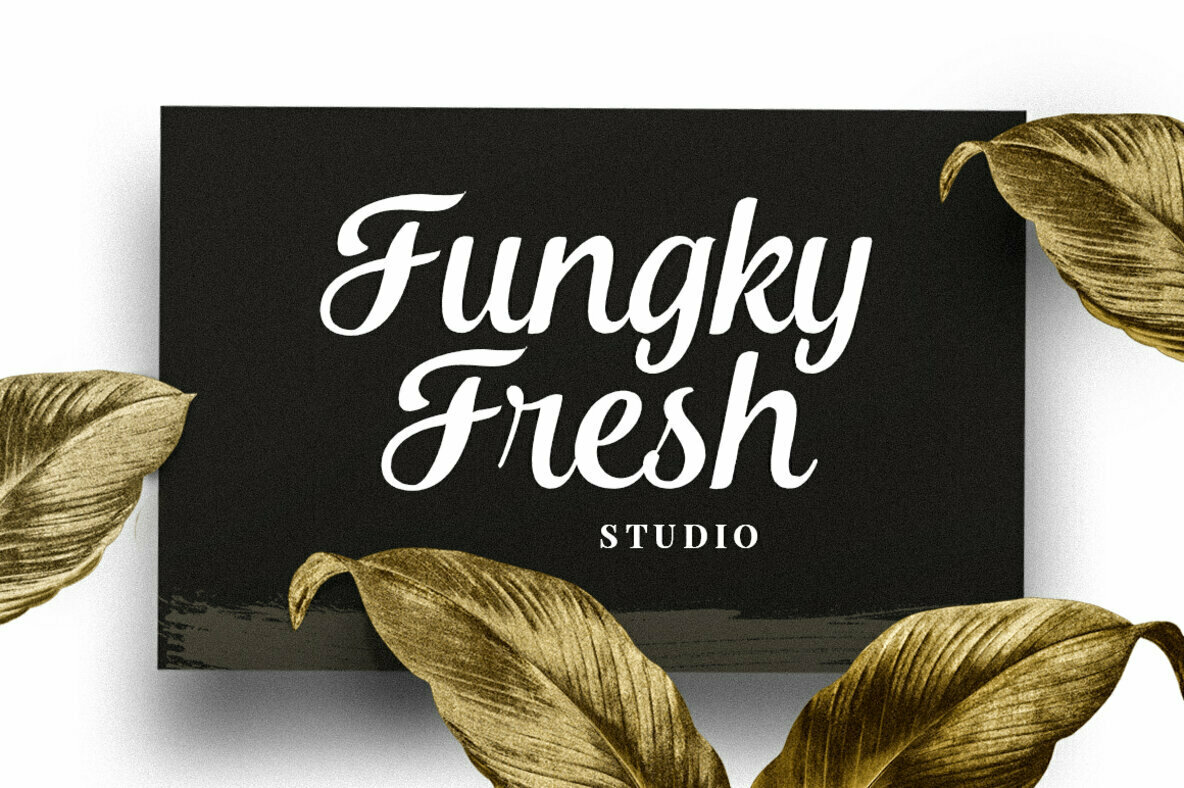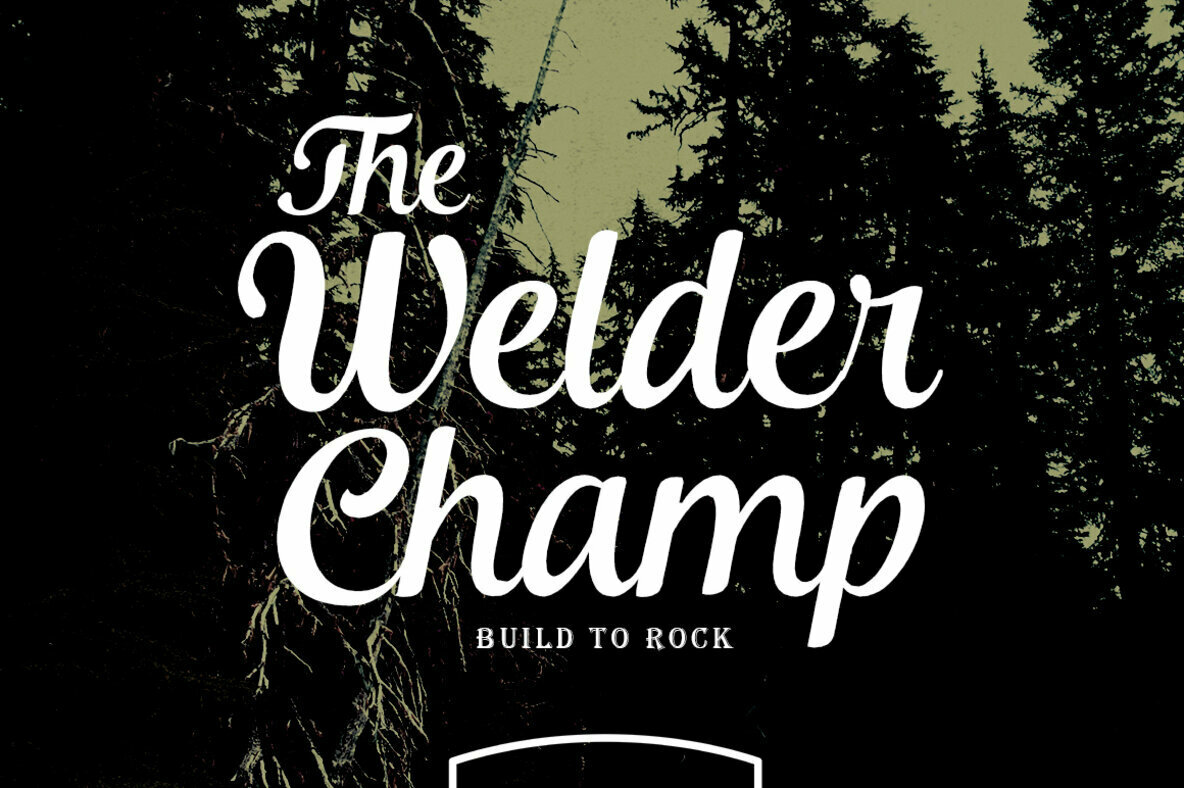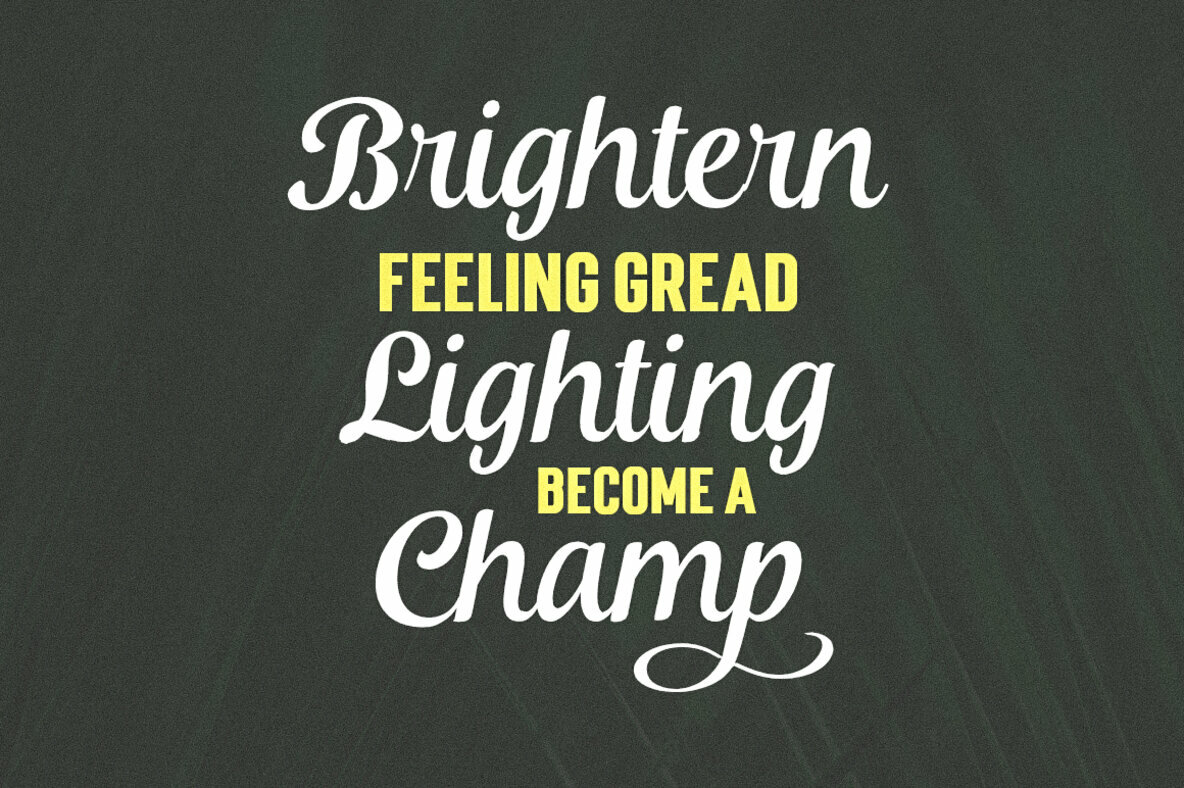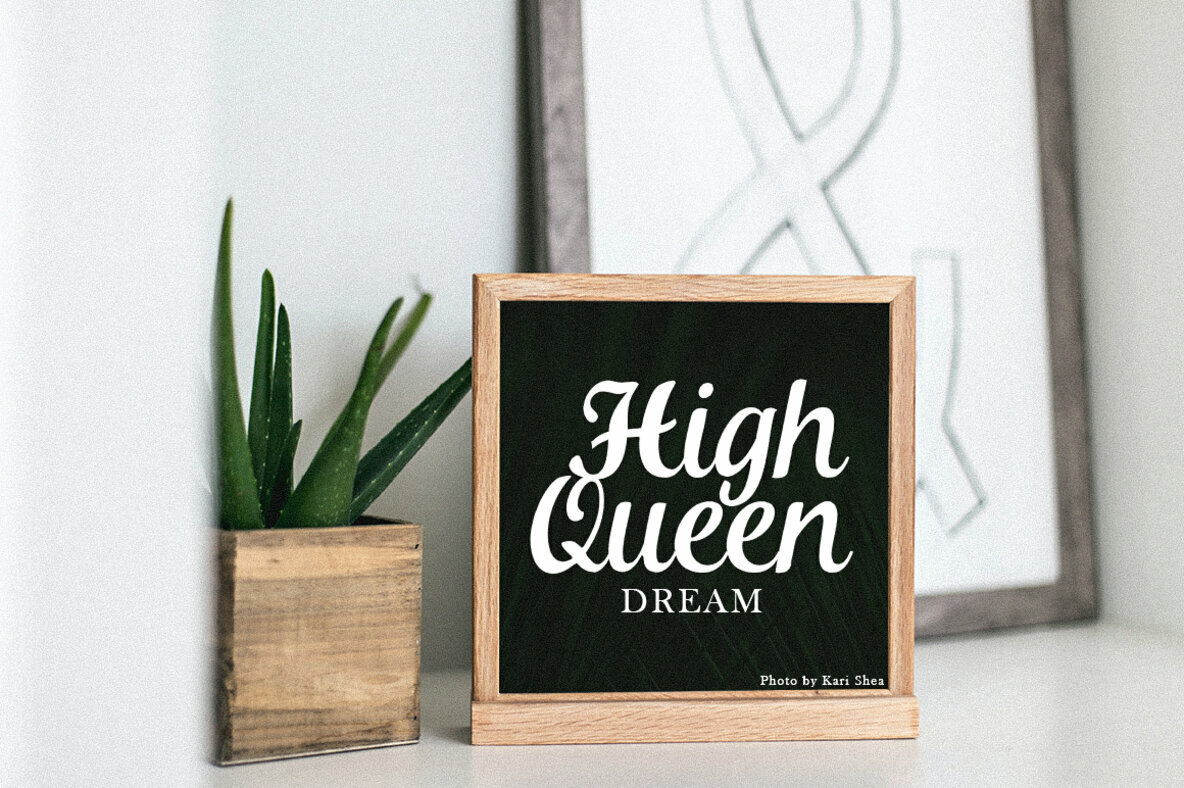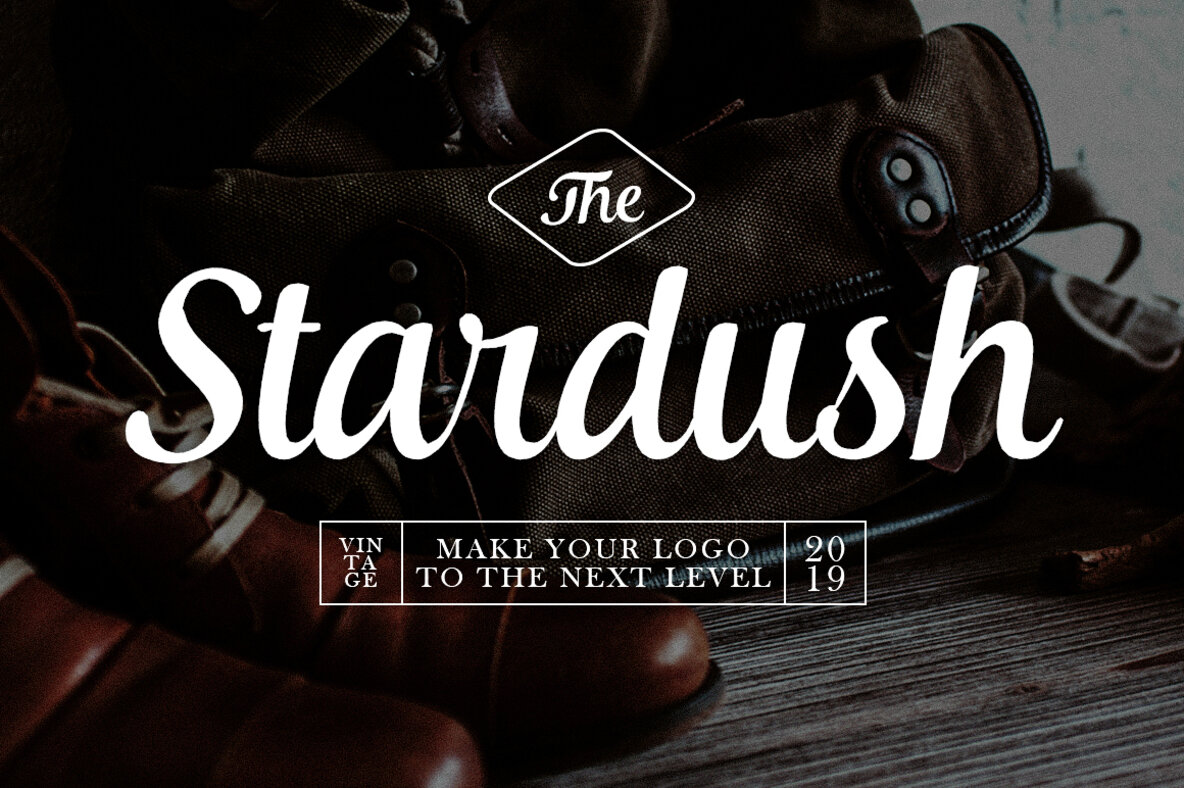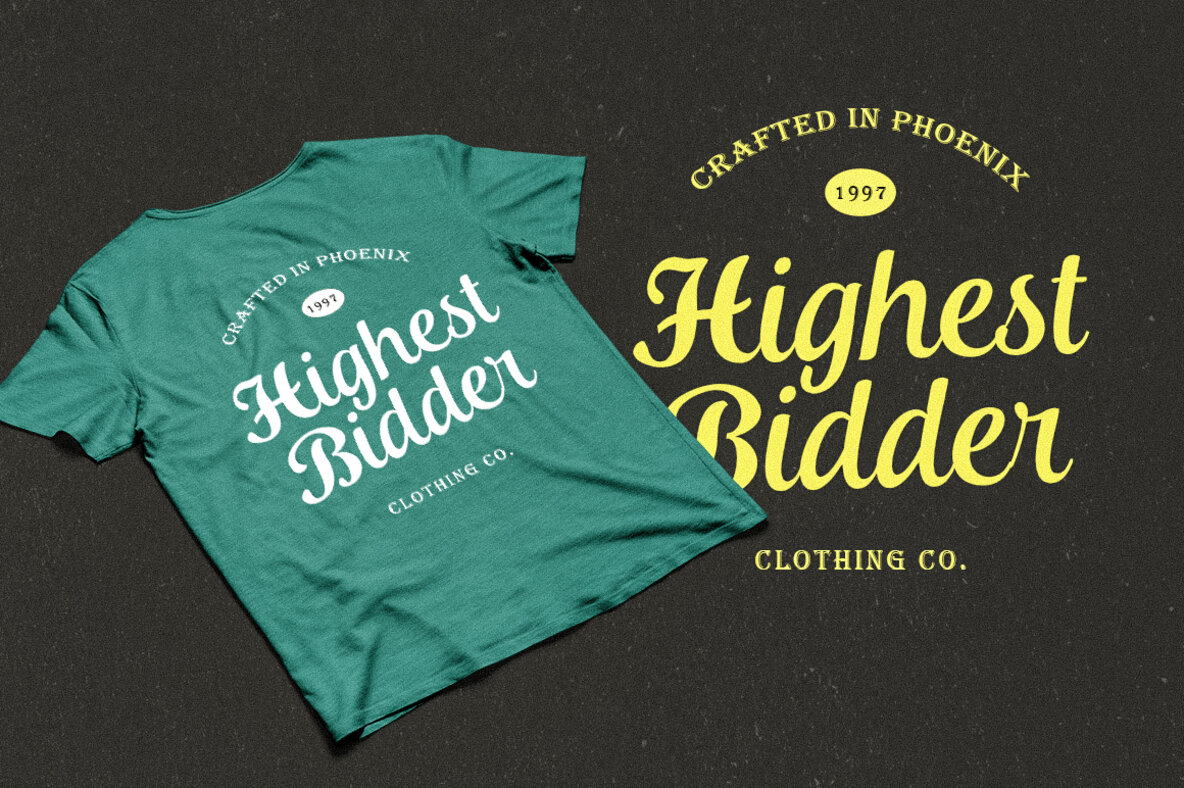
Khamden Script Font
Khamden Script
Embrace the art of typography with Khamden Script, a bold handmade font designed to lend authentic elegance to your creative projects. Tailored for logos, invitations, and other formal applications, this typeface transforms textual presentation into a dynamic visual experience. Enjoy crafting unique designs that stand out with its versatile applications, from fashion labels to advertising materials. To maximize Khamden's potential, use it with programs that support OpenType features and the Glyphs panel, such as Adobe and Corel Draw applications, enabling full access to its extensive character variations.Khamden Script: The Bold Statement Typeface